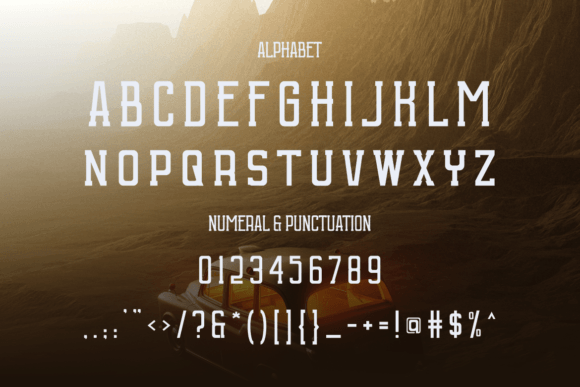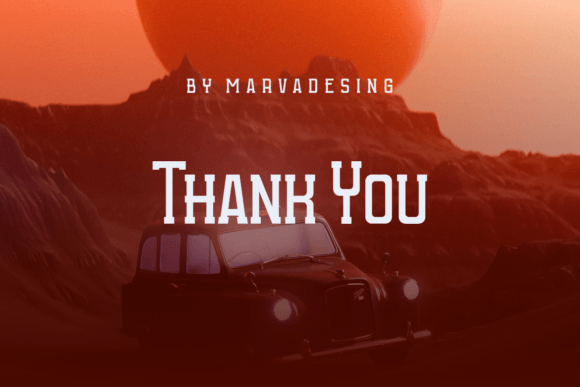
Bnackdor Font: Elevate Your Designs with a Unique and Stylish Modern Display Font
In the world of design, fonts play a crucial role in conveying messages, expressing creativity, and setting the tone for a brand or project. With the numerous font options available, finding the perfect one that stands out from the rest can be a daunting task. However, if you’re looking for a unique, stylish, and modern display font that can elevate your designs, look no further than Bnackdor Font. In this article, we’ll explore the features, benefits, and uses of Bnackdor Font, and why it’s a wonderful asset to your font library.
What is Bnackdor Font?
Bnackdor Font is a modern display font designed to make a statement. Its unique and stylish design makes it perfect for a wide range of projects, from branding and advertising to packaging and digital media. The font’s sleek lines, curves, and geometric shapes give it a distinctive look that’s both elegant and edgy.
Key Features of Bnackdor Font
- Unique and Stylish Design: Bnackdor Font boasts a one-of-a-kind design that’s sure to turn heads. Its modern and sleek aesthetic makes it perfect for designers looking to add a touch of sophistication to their work.
- Modern Display Font: Bnackdor Font is specifically designed as a display font, making it ideal for headlines, titles, and short text passages.
- Versatile: Despite its unique design, Bnackdor Font is incredibly versatile and can be used for a wide range of projects, from print to digital media.
- Easily Readable: Despite its stylized design, Bnackdor Font remains easily readable, making it perfect for use in body text, captions, and other applications where legibility is crucial.
Benefits of Using Bnackdor Font
So, why should you consider adding Bnackdor Font to your font library? Here are just a few benefits of using this amazing font:
- Adds Visual Interest: Bnackdor Font’s unique design adds visual interest to any project, making it perfect for designers looking to create something that stands out from the crowd.
- Enhances Brand Identity: With its modern and stylish design, Bnackdor Font can help enhance your brand’s identity and create a lasting impression on your audience.
Uses of Bnackdor Font
Bnackdor Font’s versatility makes it suitable for a wide range of projects and applications, including:
- Branding and Advertising: Use Bnackdor Font to create eye-catching logos, billboards, and ad campaigns that grab attention.
- Packaging Design: Add a touch of elegance and sophistication to your product packaging with Bnackdor Font.
- Digital Media: Use Bnackdor Font in your website designs, social media graphics, and digital marketing materials to create a lasting impression.
- Print Media: Bnackdor Font is perfect for use in print media, including brochures, flyers, posters, and business cards.